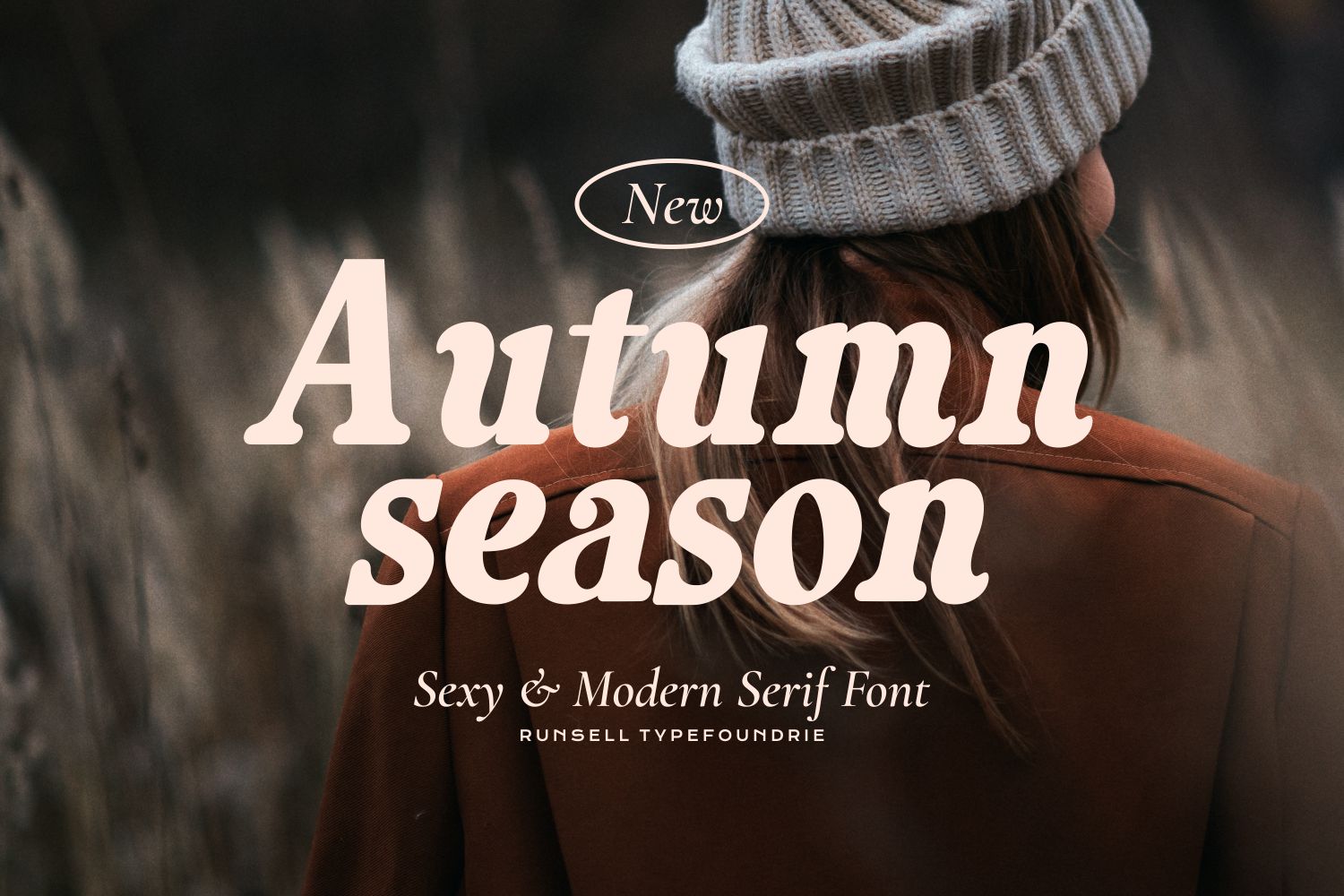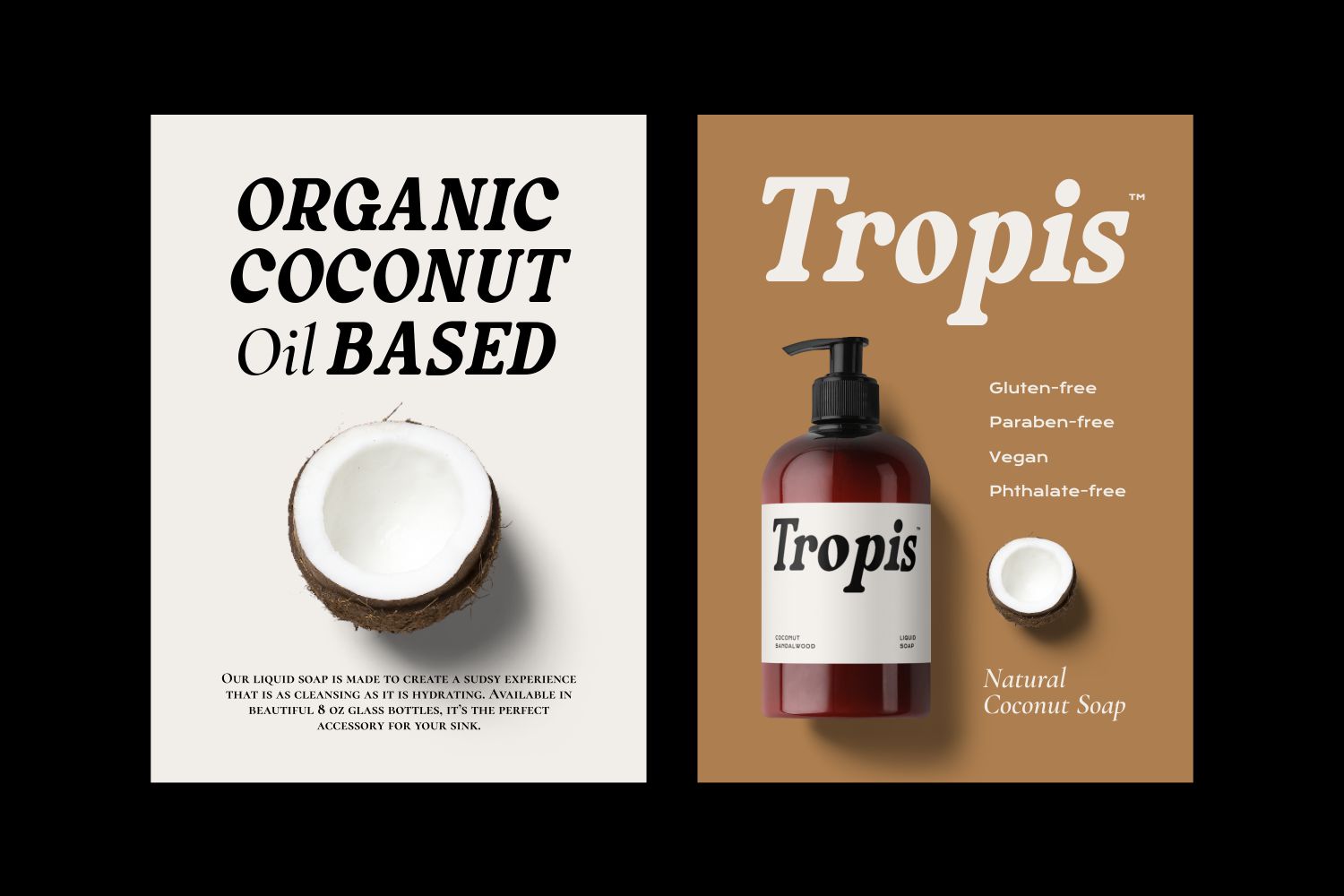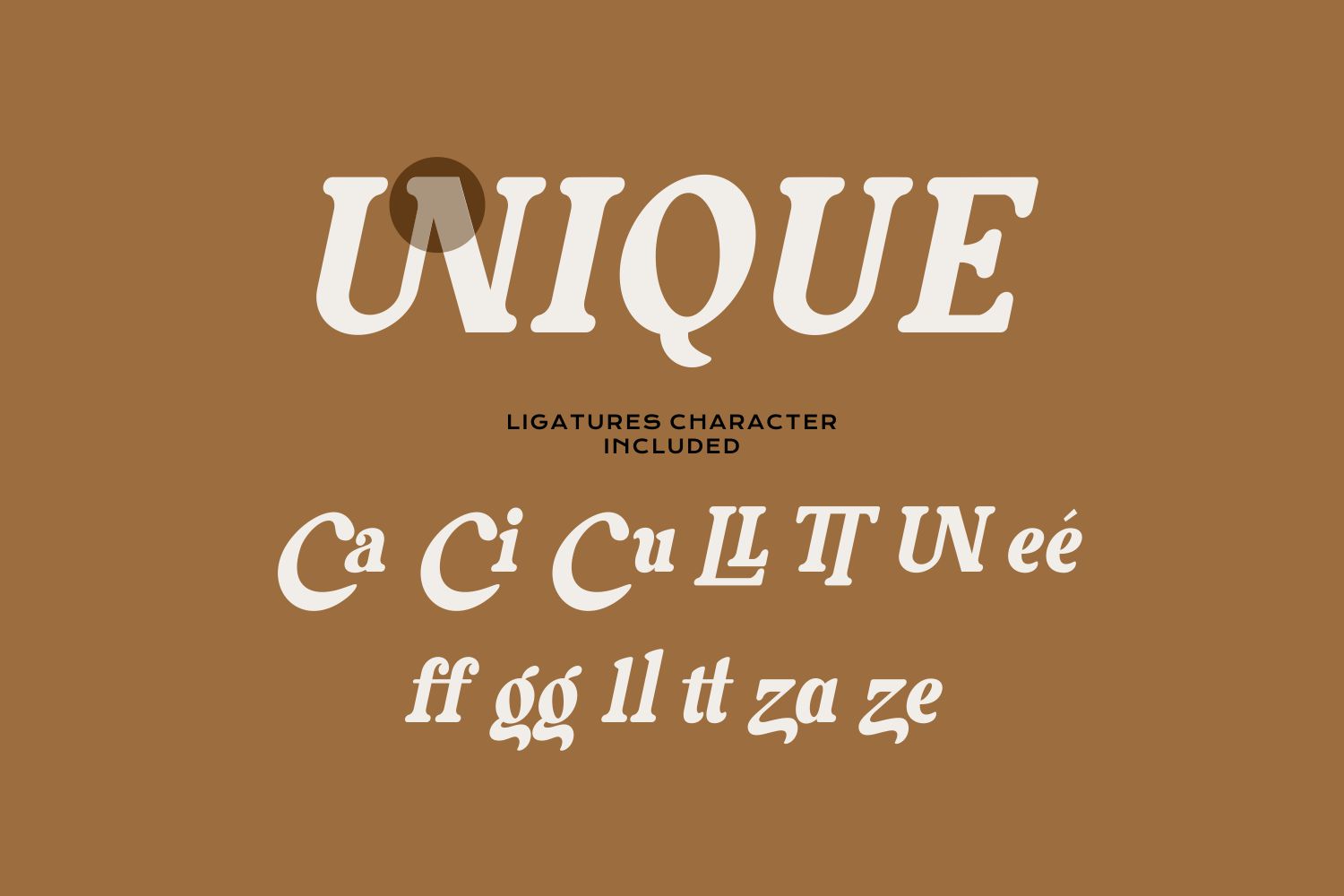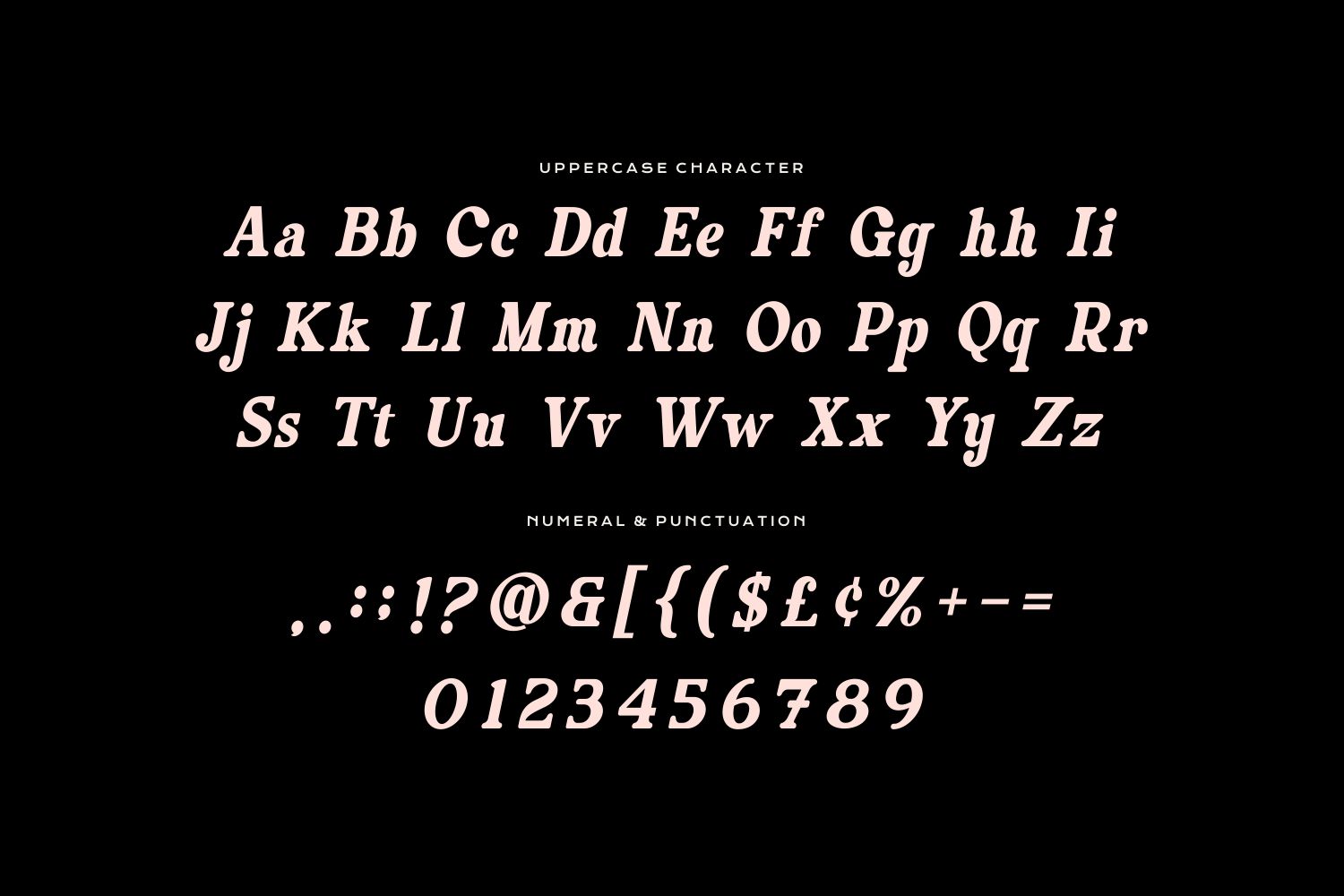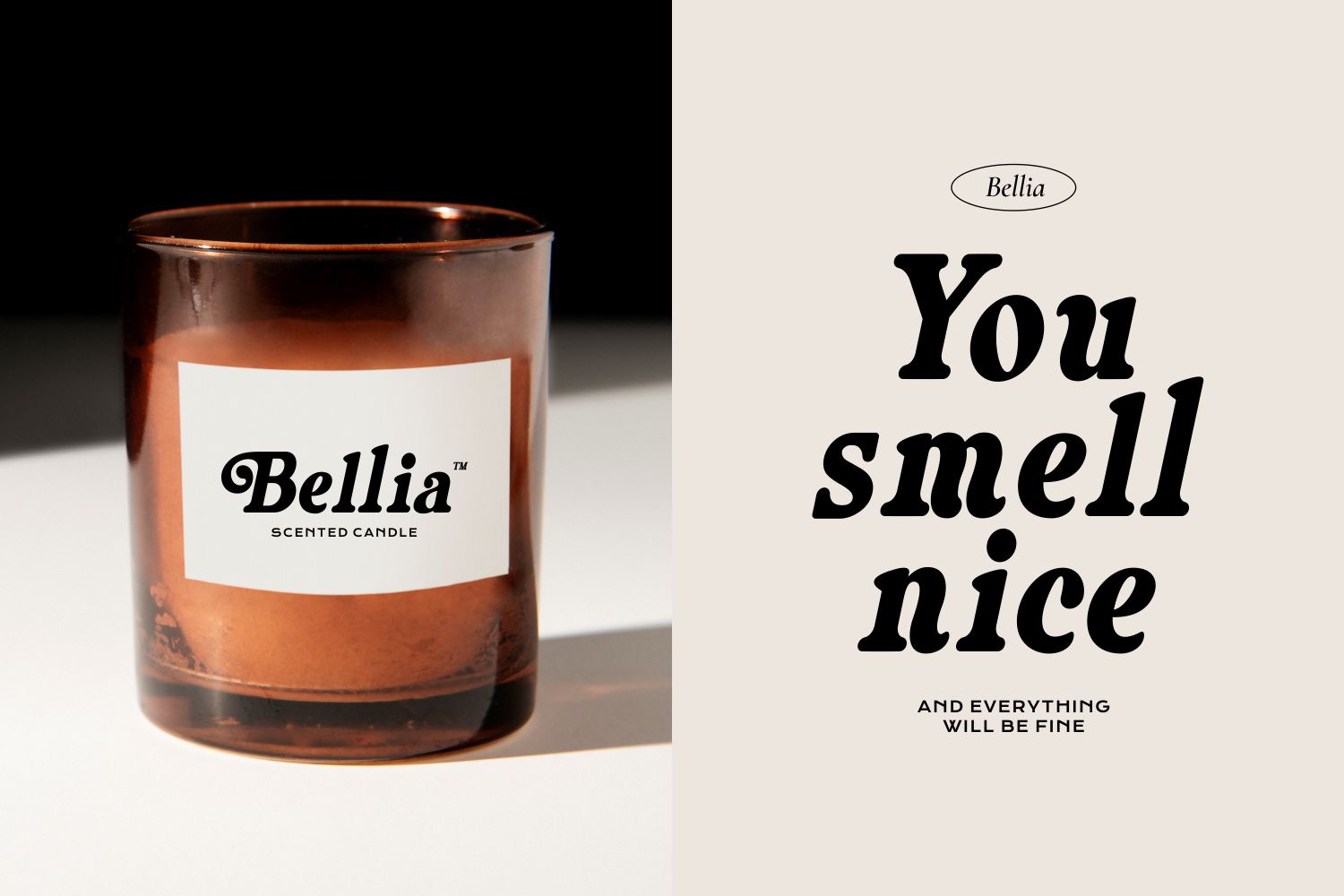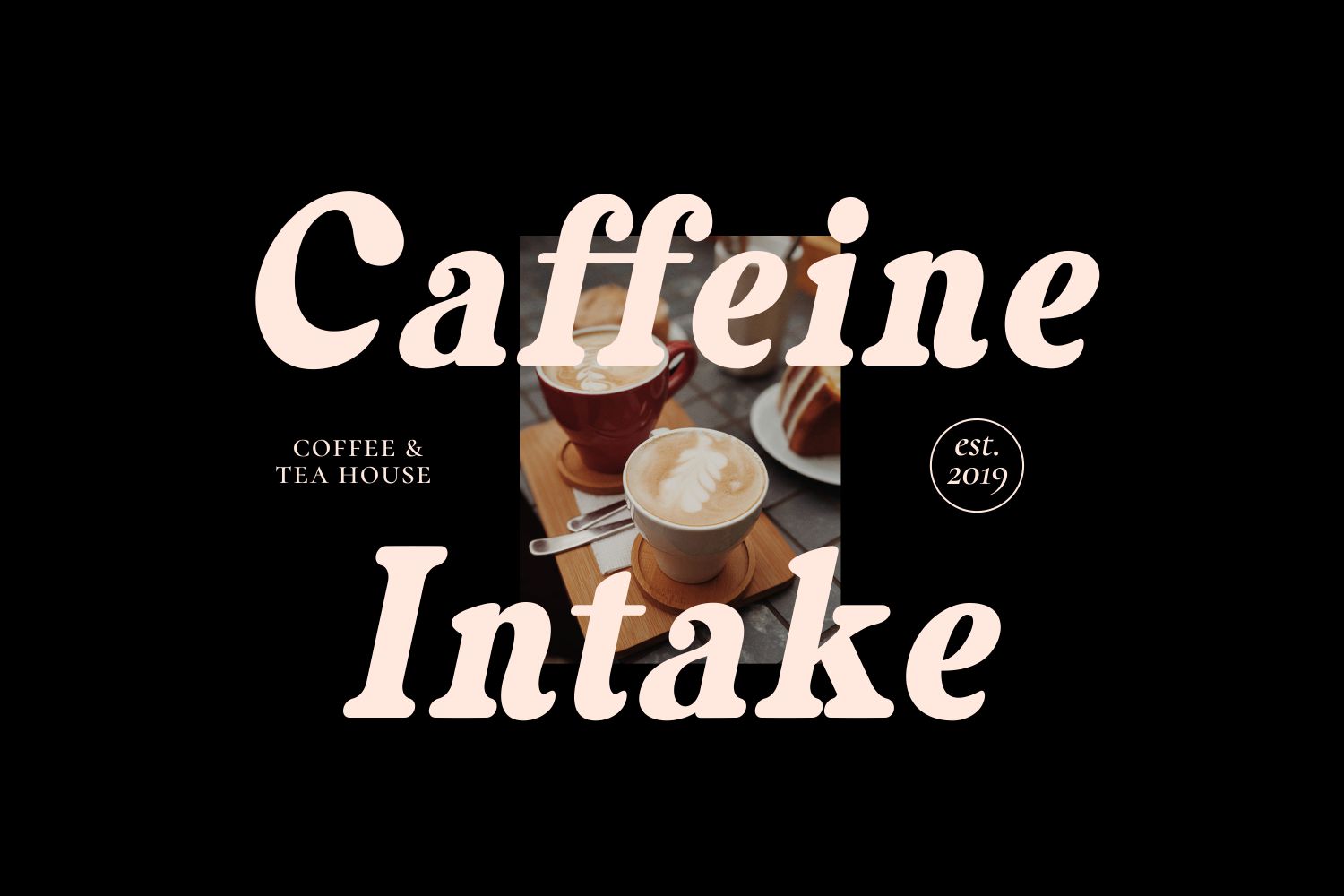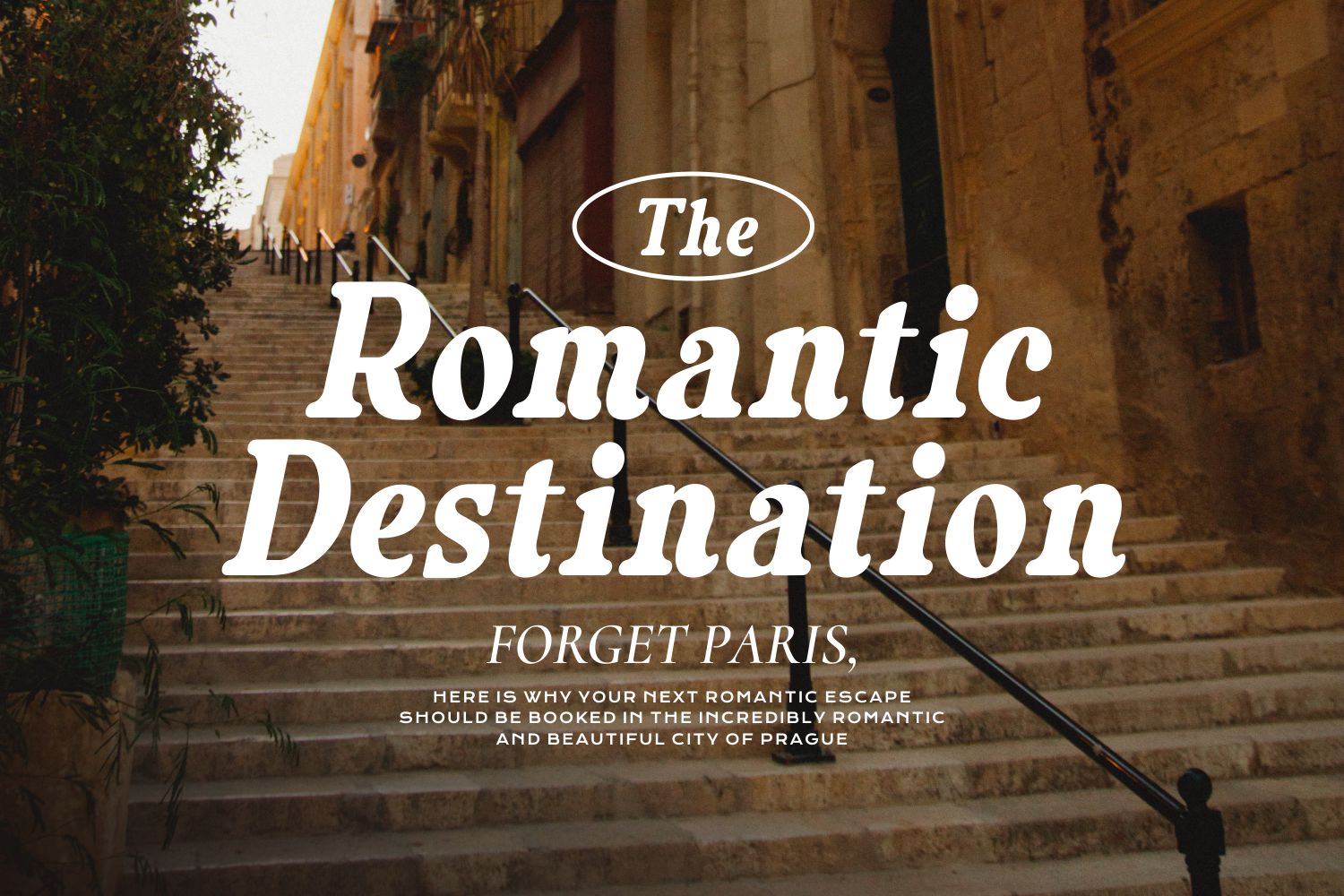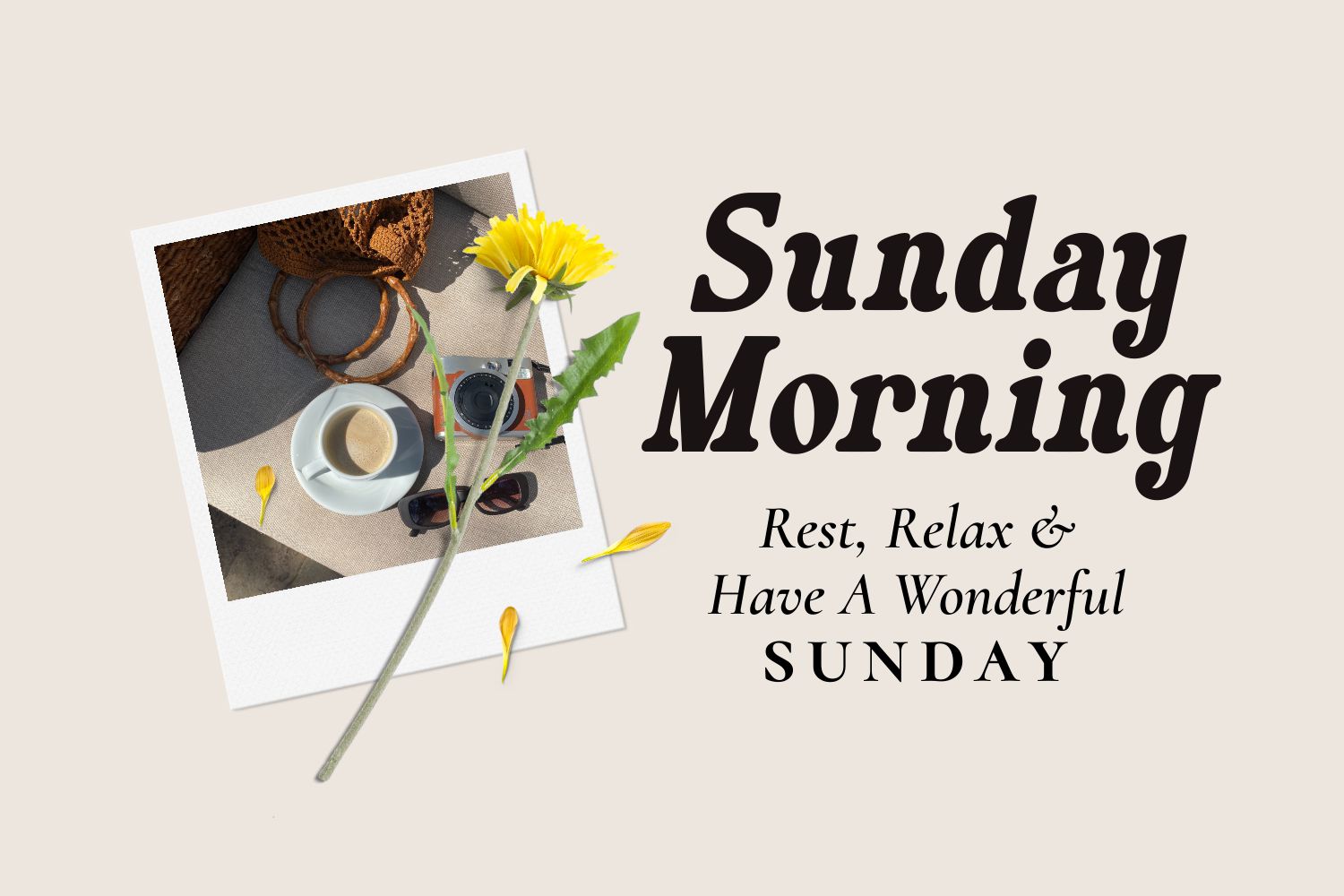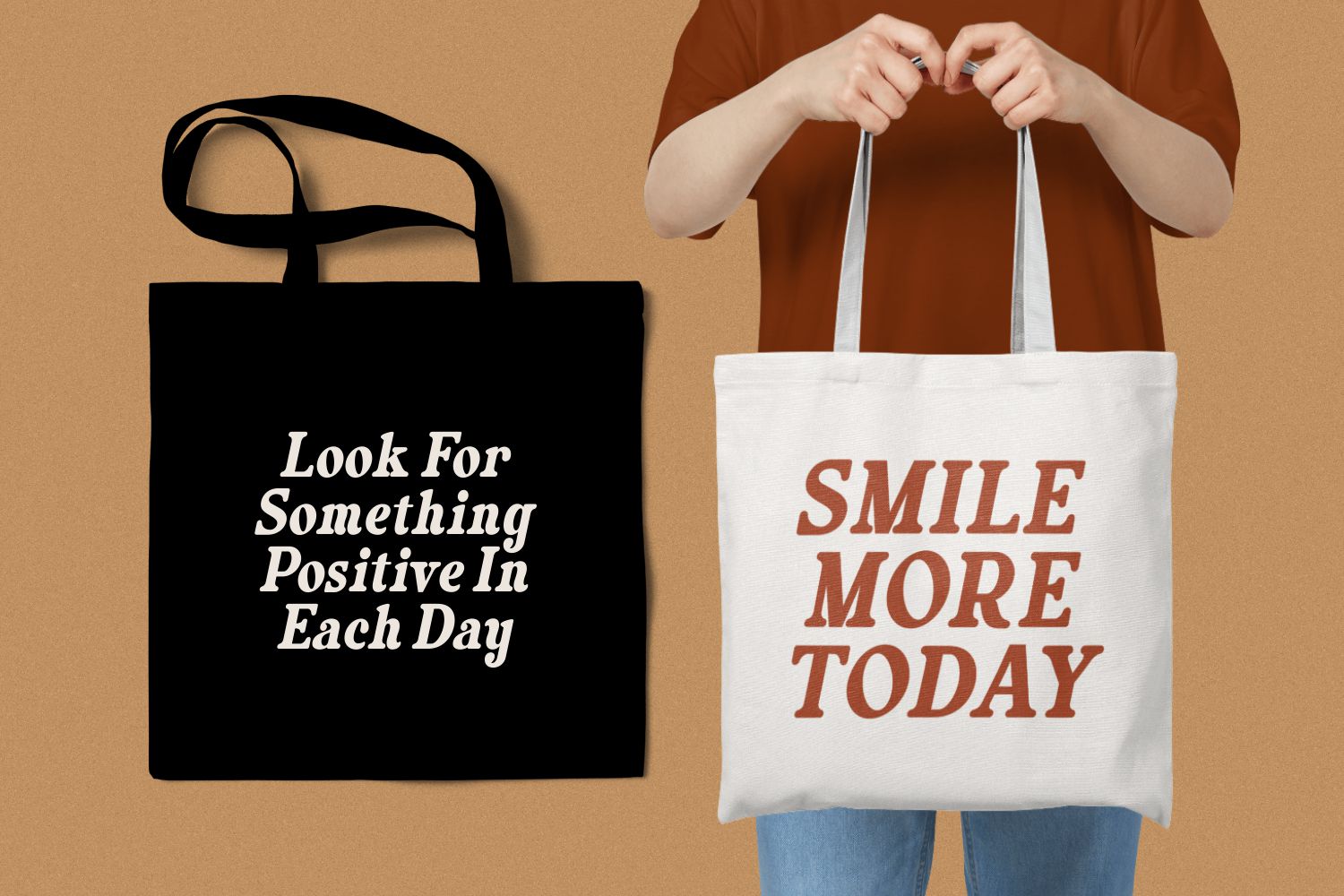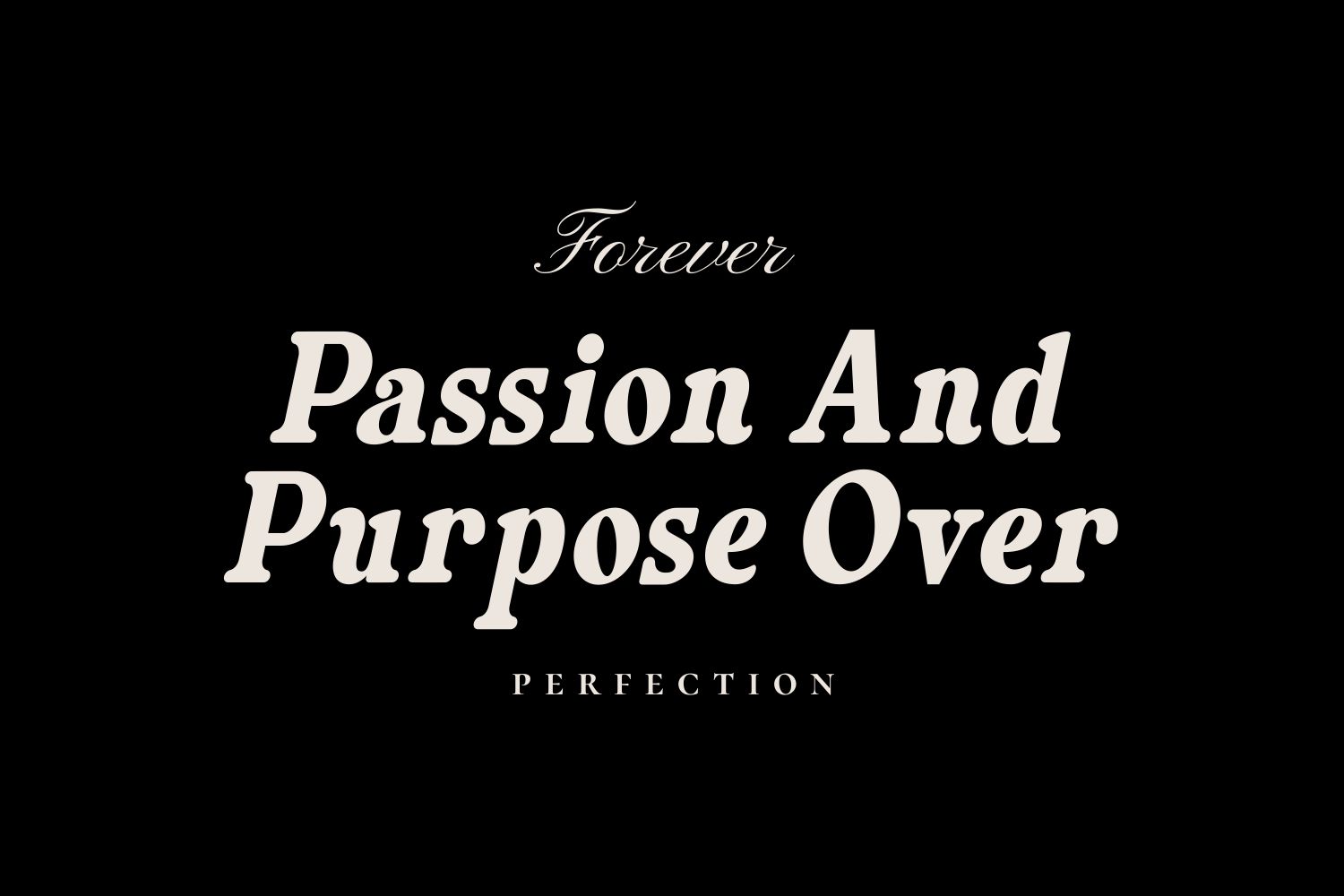
Autumn Season is a warm and charismatic modern serif font that blends soft curves with bold character, making it perfect for seasonal themes, lifestyle branding, and romantic editorial designs. Its strong yet elegant letterforms create a harmonious visual balance that evokes feelings of comfort, nostalgia, and style. Whether paired with minimalist photography or vintage textures, this font adds a timeless, refined touch.
Equipped with multilingual support and a stylish set of alternates, Autumn Season is versatile for a variety of uses, from candle labels and fashion lookbooks to wellness quotes and product packaging. Its playful yet classic form delivers a distinctive voice that feels both personal and professional.
Autumn Season